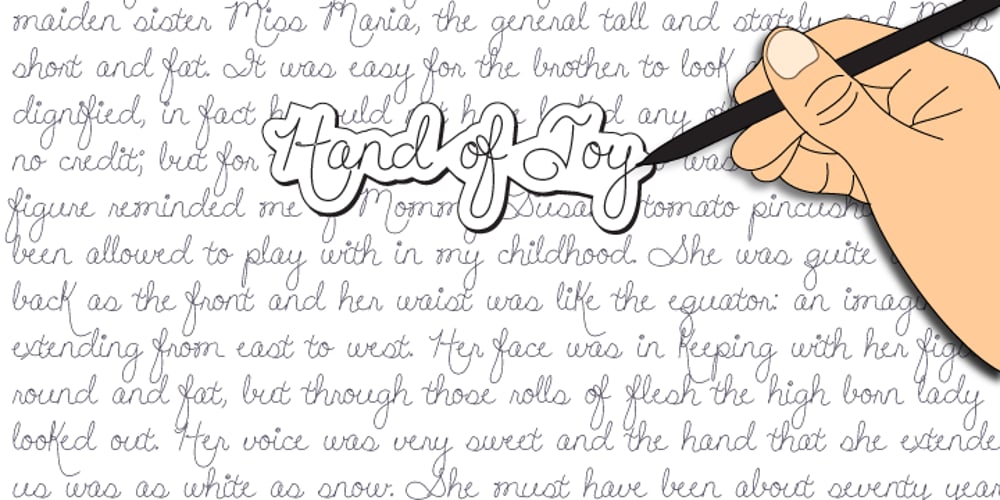
Hand Of Joy Font Family was designed by Dathan Boardman and published by Open Window. Hand Of Joy contains 3 styles and family package options. Fantastic, elegant, informal handwriting. It’s Hand of Joy! Comes with alternate (end of word) characters with extra swooshes.